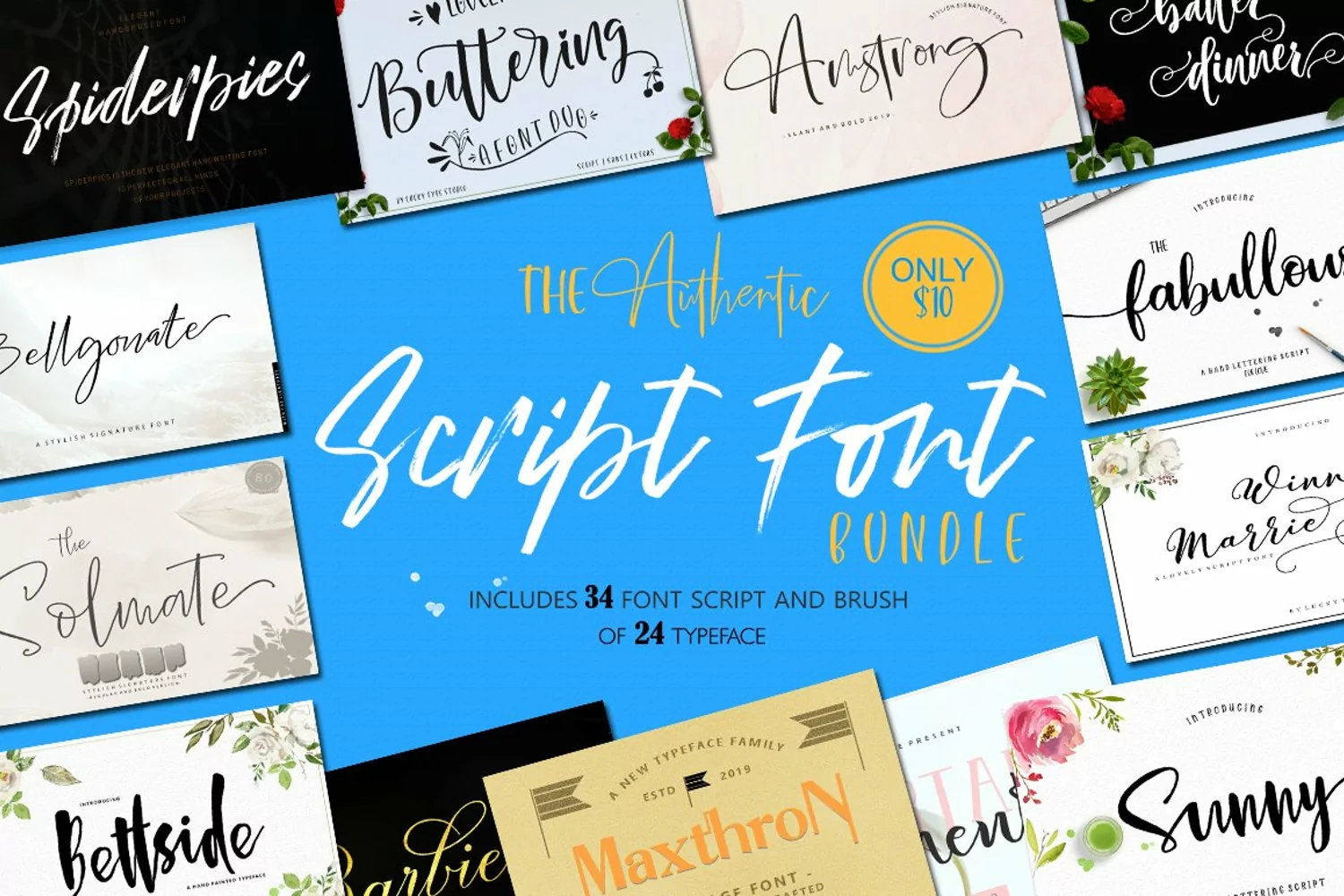
The Authentic Script Font Bundle
Introducing The Authentic Script Font Bundle.
All my fonts are in my shop. I usually sell it for $ 275 separately. This is your chance to get all my fonts at super cheap prices! Includes 24 Fonts. This bundle includes various font styles such as calligraphy, signatures, brushes, hand letters, and more. with hundreds of glyphs, including alternatives, ligature, swash, and international language support. Also supported by PUA code. Access font characters are compatible with Silhouette Studio, Cricut Design Space. Just copy and paste alternative characters using Character Map (Windows), Nexus Font (Windows), Font Book (Mac) or software programs like PopChar (for Windows and Mac).
Typefaces included:
→ Fabullous Script
→ Lovely Buttering
→ Spiderpies Bruses
→ Bettside Script
→ Maxthron Sans Serif
→ Amstrong Script
→ Barbies Script
→ Sunny Script
→ The Solmate Signature Script
→ Bellgonate Signature Script
→ Important Element
→ Winnie Marrie Script
→ Batter Dinner Script
→ Mikaella Script
→ Simple Boy Script
→ Southside Script
→ Wild Smith Script
→ Lonelly Girl Script
→ Best Dreams Script
→ Duttane Script
→ Britnees Script
→ Casttelya Script
→ Magnolia Script
→ Emelyne Script